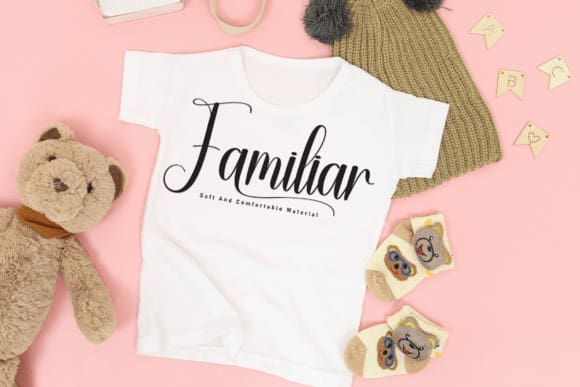
Relation Font
Relation Font is a sweet and friendly handwritten font. Its natural and unique style makes it incredibly fitting to a large pool of designs. The only limit is your imagination!